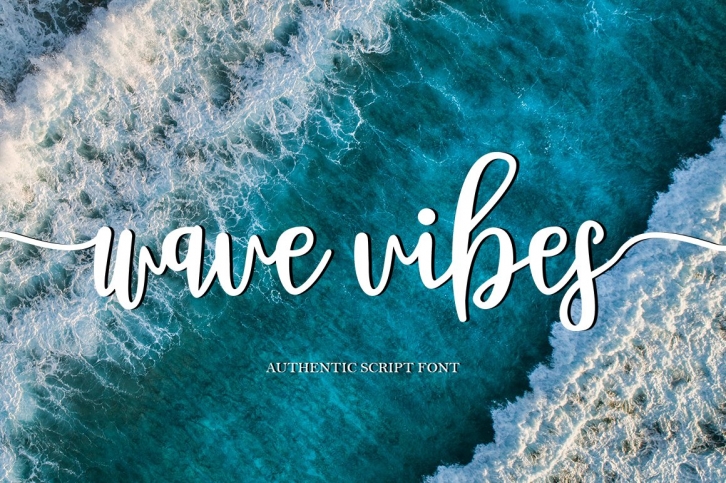
Wave Vibes Script is a gorgeous font that was realeased on September 5, 2020. The font can be used in many style contexts and design environments. Perfect for invitations, magazines, websites, logos, and more! It was designed by Hisoka Morrow and the file size is 9.18 MB. Thanks for checking out this font!